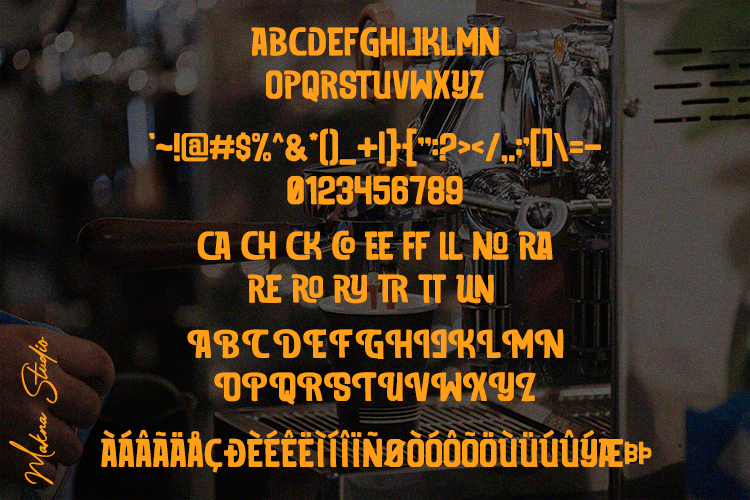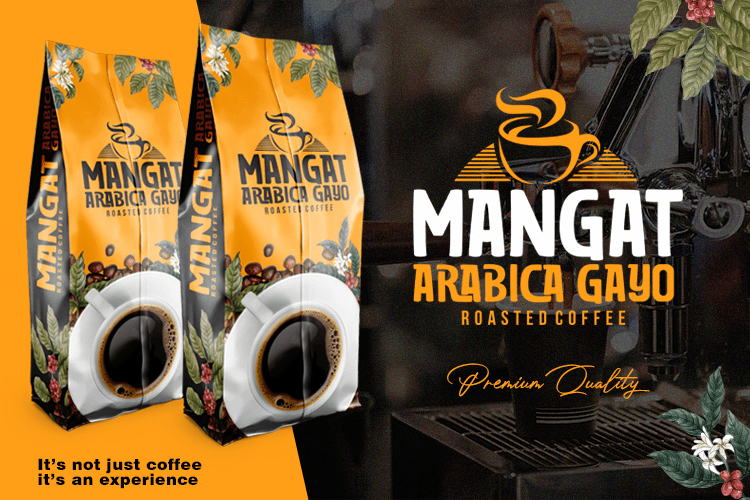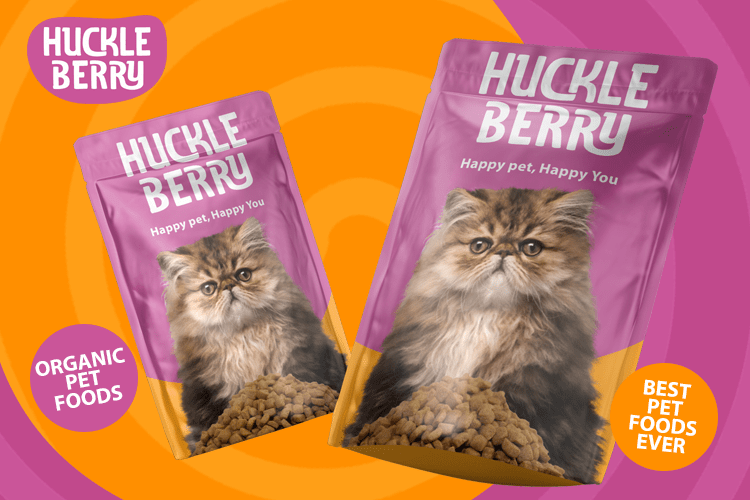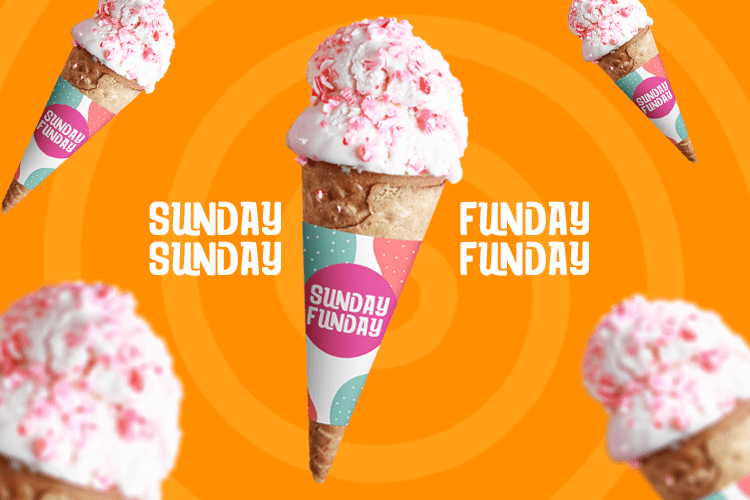
Caramel Mocachino Font
Caramel Mocachino Display Font is a bold and stylish It’s characters have a simplicity and charm that are perfect for big, bold headings. Chirp also includes a few ligatures and alternate characters to add that extra bit of personality.